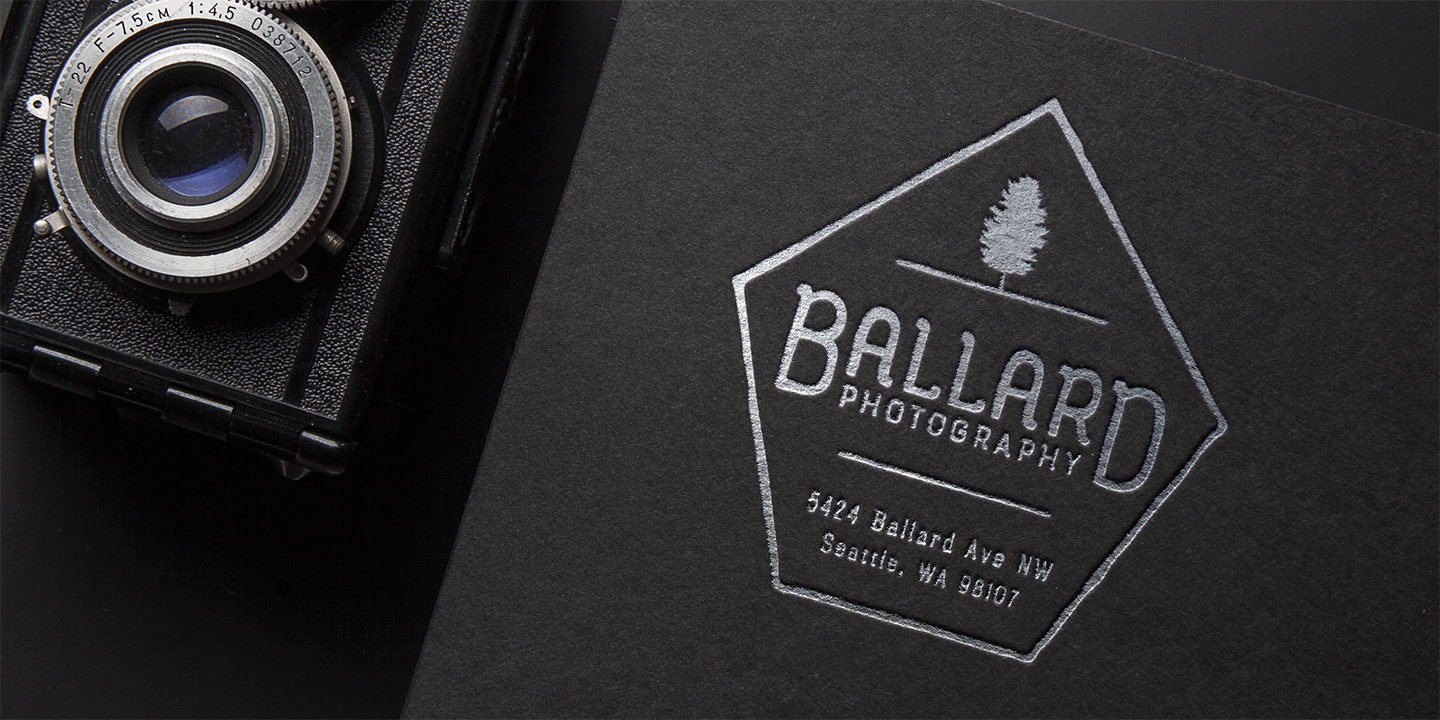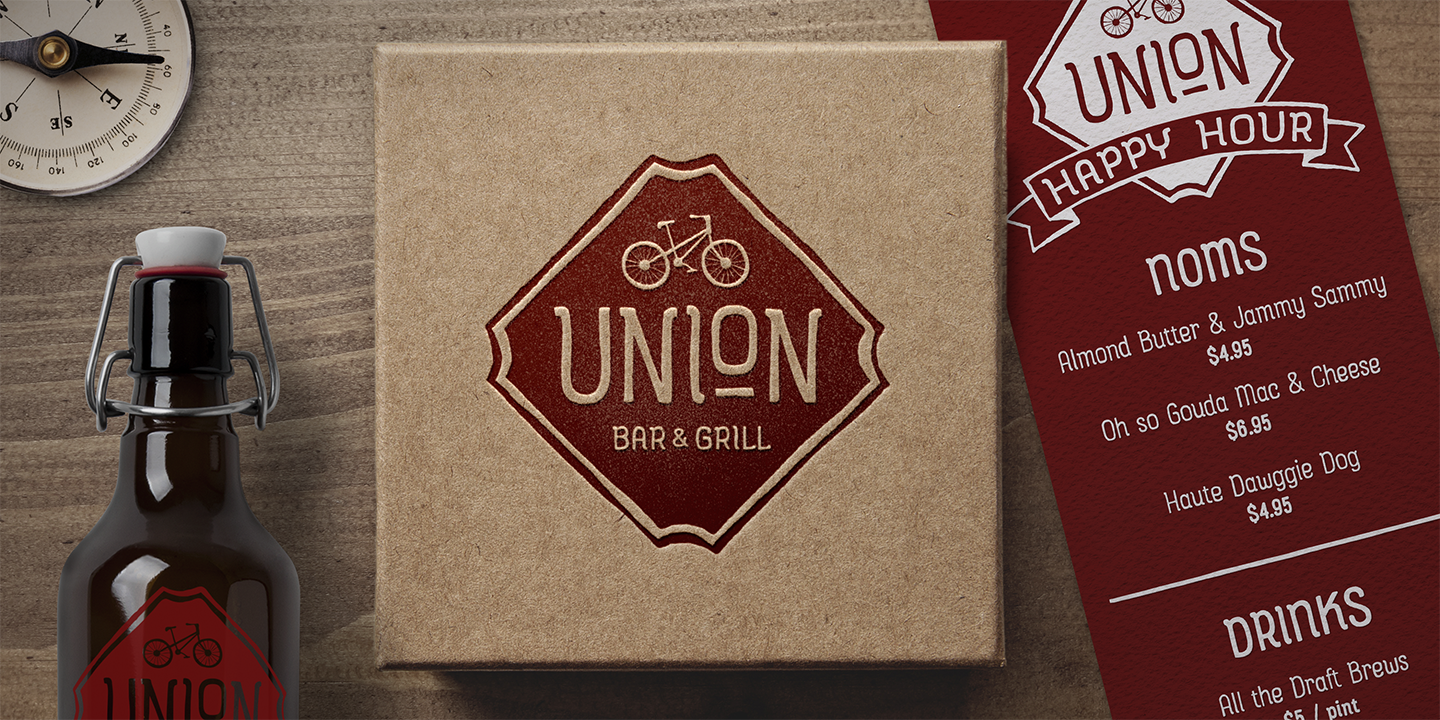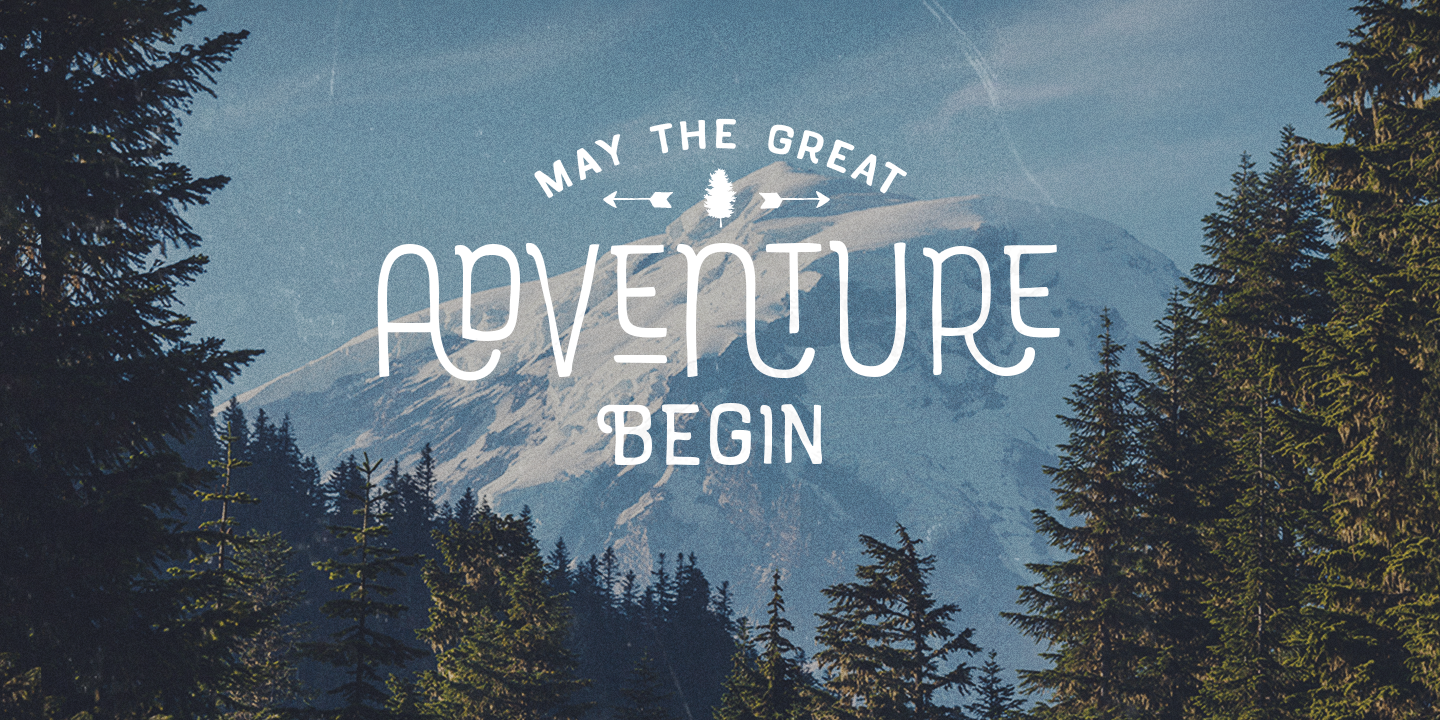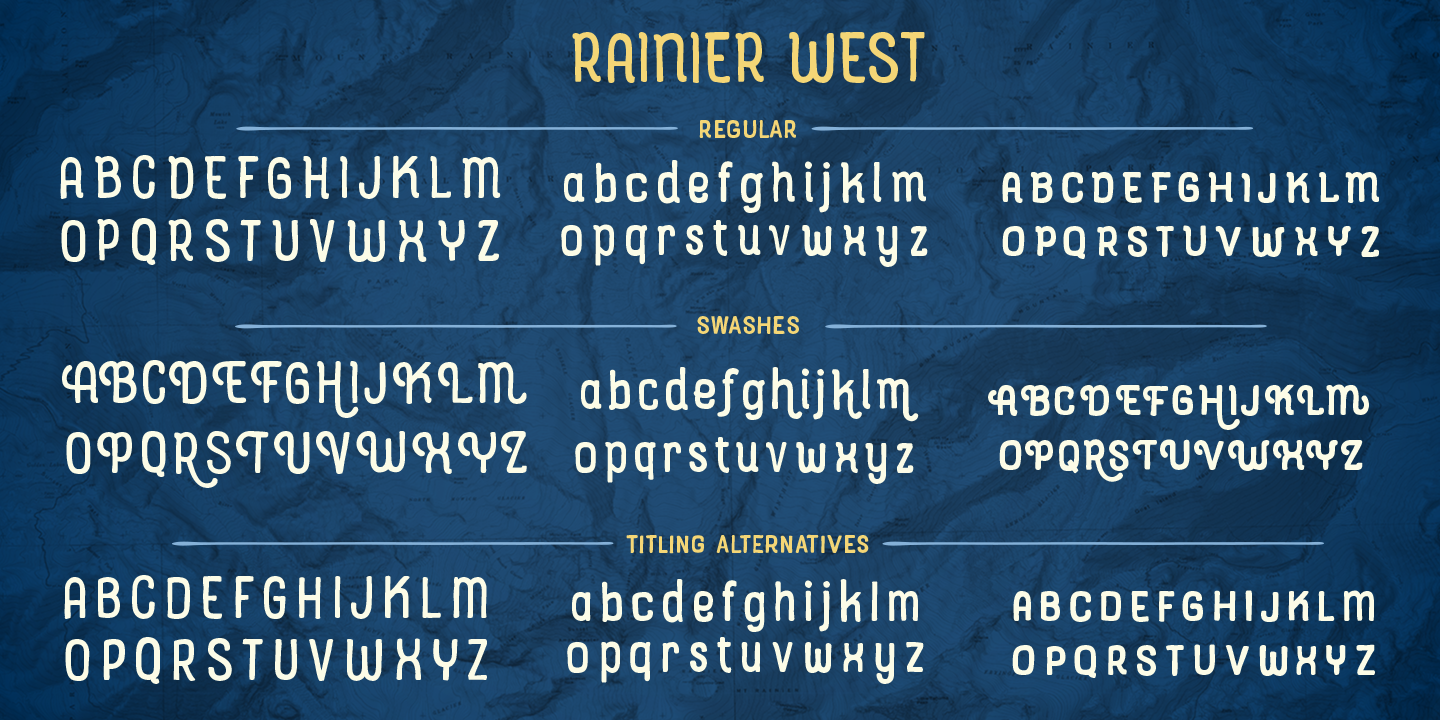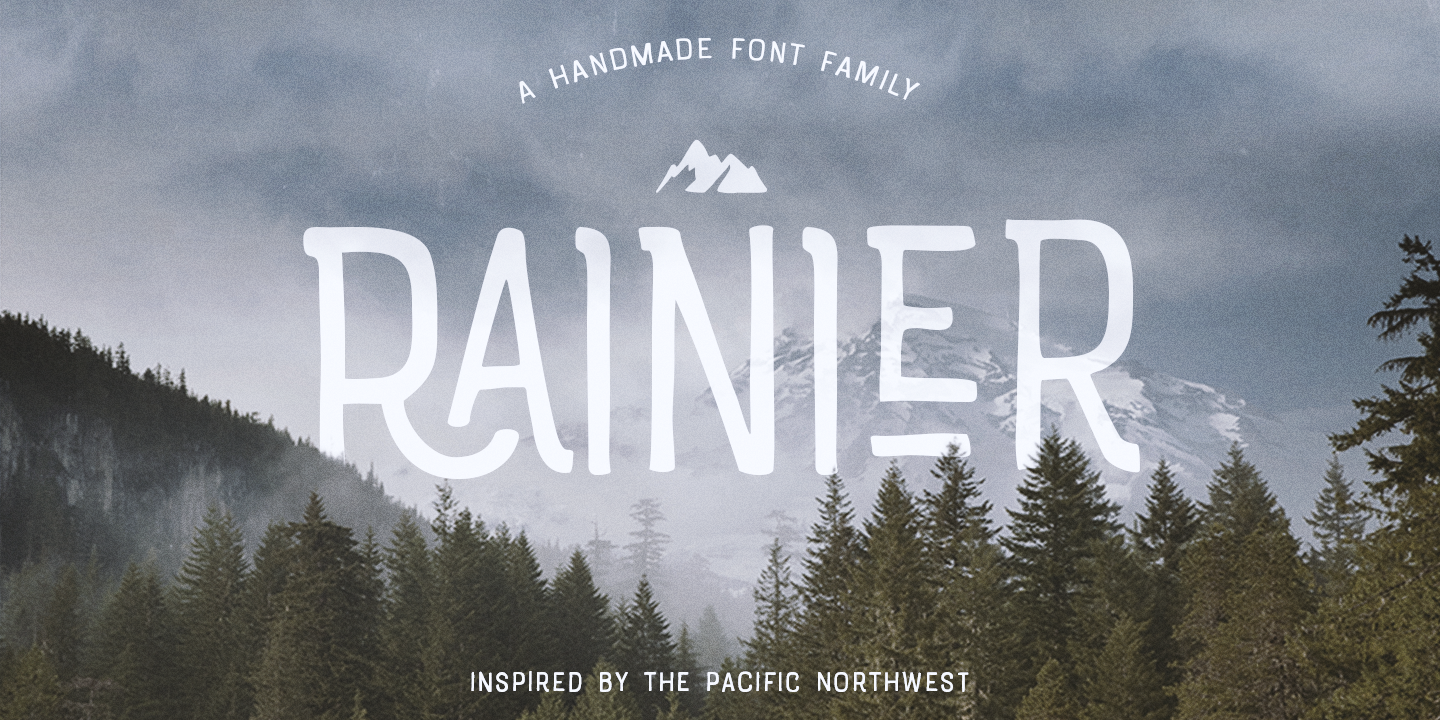
Rainier West Family (4 fonts)
Two sub-families with unique styles - Rainier North and Rainier West
4 weights per family, broken down numerically - 100 (light), 300 (regular), 500 (bold), 700 (black)
In addition to the font, you get a set of awesomely rustic ornaments designed and drawn to go specifically with Rainier such as rustic Northwest Illustrations, banners & flags, frames, flourishes, lines & line breaks, and arrows!
Ligatures, Discretionary Ligatures, Small Caps, Alternates, Contextual Alternates, Swash